Brush script fonts occupy an interesting place in branding. They bring movement, personality, and a sense of craftsmanship that is difficult to recreate with geometric or traditional calligraphic typefaces. When I review visual identities, I often notice that introducing a brush script changes the emotional tone of a project almost immediately—even when every other design element stays the same.
That said, choosing a brush script isn't simply about finding the most decorative lettering. The texture, spacing, stroke contrast, and overall rhythm all influence how trustworthy, refined, or approachable a brand feels. A typeface that looks beautiful in a marketplace preview can become surprisingly difficult to use once it appears across packaging, websites, social media, and printed materials.
Wedding invitations are one of the few design projects where expressive typography is expected rather than restrained. Couples want something personal instead of corporate, and brush lettering naturally communicates warmth and authenticity. The same qualities also make these fonts valuable for boutique branding, premium packaging, lifestyle businesses, and editorial headlines.
One thing I've learned from branding projects is that strong typography rarely tries too hard. The best brush scripts don't rely on oversized flourishes or excessive swashes. Instead, they achieve elegance through confident letterforms, balanced spacing, and enough personality to feel handcrafted without sacrificing readability.
In this collection I've looked at 41 brush script fonts from a designer's perspective. Rather than focusing only on appearance, I've considered how each typeface communicates, how flexible it is across different brand touchpoints, and where it fits best within a modern visual identity.
1. Estella Gardens Font
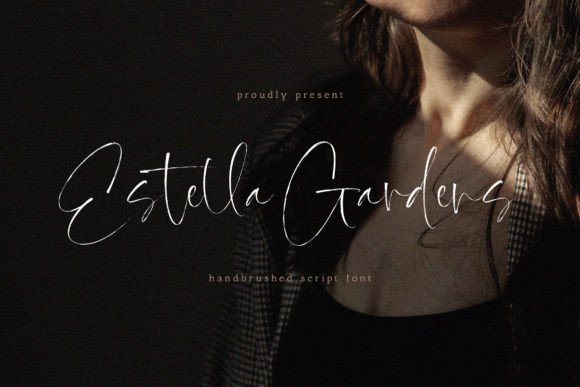
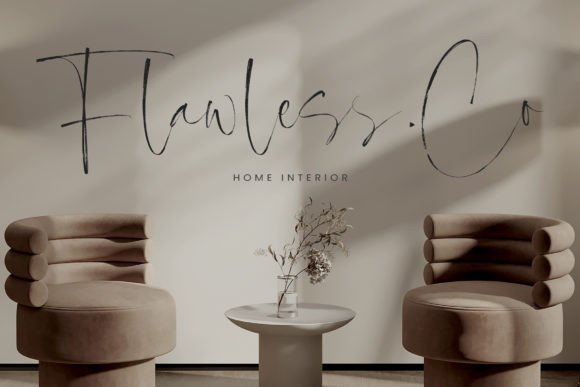
Estella Gardens immediately communicates elegance without feeling overly formal. The brushwork feels deliberate rather than exaggerated, and that's one of the reasons it stands out among modern brush script fonts. The letterforms flow naturally into one another while maintaining open counters that keep words surprisingly readable, even when the script becomes expressive.
From a branding perspective, this balance matters. I often see script fonts that look impressive in a specimen image but begin to fall apart once they're used in a real logo or on product packaging. Estella Gardens avoids that problem because its rhythm remains consistent across different word lengths. The transitions between characters feel intentional, giving headlines a handcrafted quality without introducing unnecessary visual noise.
The OpenType alternates and ligatures provide enough flexibility to create lettering that feels custom instead of repetitive. That's especially valuable for wedding invitations, where repeated names, dates, and decorative headings can otherwise start looking mechanical.
One characteristic I particularly appreciate is the moderate stroke contrast. Heavy contrast often causes thin strokes to disappear on smaller printed pieces or lower-resolution screens, while extremely uniform strokes can make script lettering appear lifeless. Estella Gardens sits comfortably between those extremes, making it more adaptable across both print and digital applications.
When pairing this font, I'd typically reach for a restrained sans-serif like Neue Haas Grotesk or a refined editorial serif with generous spacing. The contrast allows the script to become the visual focal point while maintaining a clear typographic hierarchy throughout the layout.
A practical limitation is that some of its longer flourishes deserve breathing room. On crowded packaging or narrow mobile layouts, I'd selectively disable certain alternates to preserve clarity rather than forcing every decorative feature into the composition.
Where I would use it
Whenever a project needs warmth, sophistication, and a handcrafted voice without drifting into overly ornate calligraphy, Estella Gardens feels like a dependable solution. Boutique beauty brands, luxury candle packaging, wedding suites, and personal brand identities are all situations where its personality supports the message instead of distracting from it.
2. Burned Font
Burned approaches brush lettering from a very different direction. Instead of refined elegance, it embraces confidence through compact proportions, stronger visual weight, and carefully controlled texture.
One thing I notice when evaluating expressive display typefaces is how believable the brushwork feels. Some fonts rely on random distressed effects that appear artificial once you begin setting actual words. Burned avoids that trap because the roughness follows the natural movement of a brush rather than looking like a digital texture layered on afterward.
The letterforms feel dense, giving headlines a strong presence without requiring oversized typography. That makes it especially effective for logos, product labels, and packaging where space is limited but visual impact still matters.
The OpenType ligatures contribute to that impression. Letter combinations flow naturally, avoiding the repetitive rhythm that often makes digital scripts feel artificial.
The brush texture is expressive enough to communicate personality, but not so distressed that reproduction becomes unpredictable. That makes the font practical across packaging, signage, apparel, and digital marketing.
Where I'd exercise restraint is with long headlines. Like most high-impact brush scripts, Achievement performs best when the typography has room to breathe.
Where I would use it